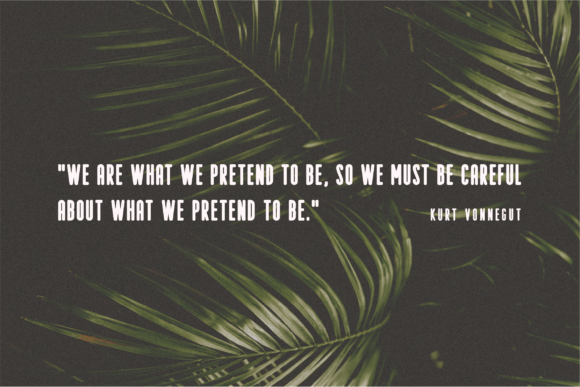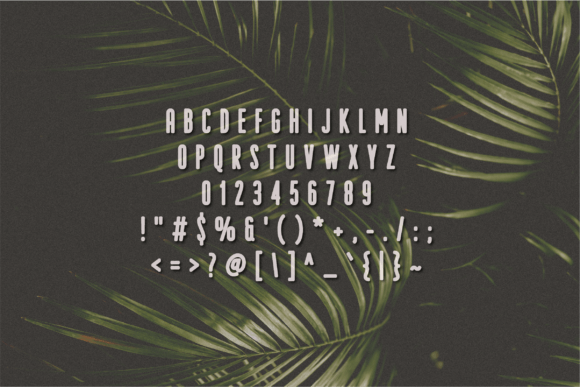
Introduction to Palmrose Font
Have you ever been stuck on a design project, struggling to find the perfect font to bring your creative vision to life? I know I have! But then, like a breath of fresh air, you stumble upon a font that makes everything fall into place. For me, that font was the Palmrose Font – a stunning sans serif font that has become my go-to design resource for countless projects.
As a designer, I can attest that the right font can make all the difference in a project’s success. And the Palmrose Font is no exception. With its modern, classy aesthetic and versatility, it’s the perfect addition to any creative project. Whether you’re designing a logo, wedding invitation, or magazine spread, the Palmrose Font is sure to elevate your work and leave a lasting impression.
Palmrose Font
- High-quality font with a unique, elegant design suitable for creative projects.
- Features a clear and legible design, with a font size range of 12-72 points, and a resolution of 300 DPI.
- Designed for use in a variety of creative projects, including logos, typography, and packaging design.
- Supports a wide range of languages, making it a versatile design resource for global projects.
Honest Review: Palmrose Font
I recently stumbled upon the Palmrose Font, and I must say it’s a fantastic design resource. The high quality of this font is immediately apparent, making it a great addition to any creative project.
- ✨ Unique and elegant design: The Palmrose Font has a distinctive, elegant feel to it, making it perfect for projects where you want to convey sophistication and refinement.
- ✨ Transparent background: This font features a transparent background, which makes it easy to use and customize in your design work.
However, I do have a few minor complaints:
- ⚠️ Limited font family: The Palmrose Font is a single font family, which may limit its versatility in certain design projects.
- ⚠️ No bold or italic variants: While the font is elegant, it would be great to have bold or italic variants available for added emphasis.
Overall, the Palmrose Font is a solid design resource that I would highly recommend to designers. Its high quality and unique design make it a great addition to any creative project, and its free download makes it accessible to designers of all levels.
Palmrose Font
To get the most out of the Palmrose Font, use it for:
- Creative projects with a transparent background.
- Designing logos, business cards, or letterheads.
- Creating invitations, posters, or social media graphics.
Remember to adjust the font size and style to suit your design needs.
Montserrat is a geometric sans-serif font that is ideal for creative projects that require a high level of sophistication and elegance. It’s a free download and features a transparent background, making it easy to use in any design project. When to use: For headings and titles in a fashion, design, or technology-related project. Montserrat is similar to Palmrose Font in terms of its modern feel but with a more geometric and industrial aesthetic.
Can I use the Palmrose Font with a transparent background?
Yes, the Palmrose Font supports transparent backgrounds, making it ideal for use in graphic design, digital art, and other creative projects where a transparent background is necessary. Simply use the font with a design application that supports transparent backgrounds, such as Adobe Photoshop or Illustrator.